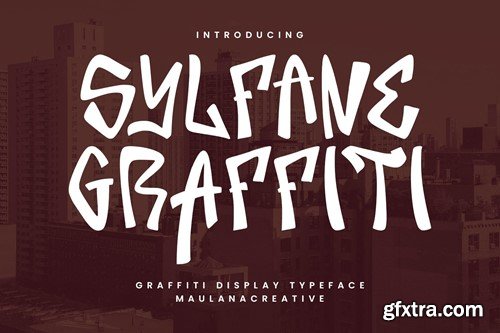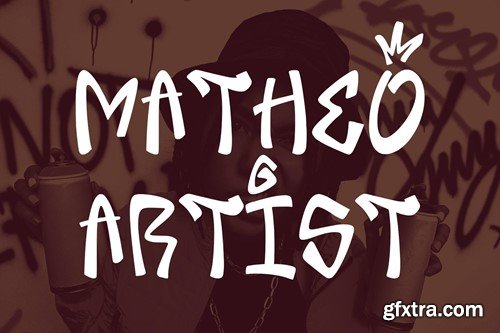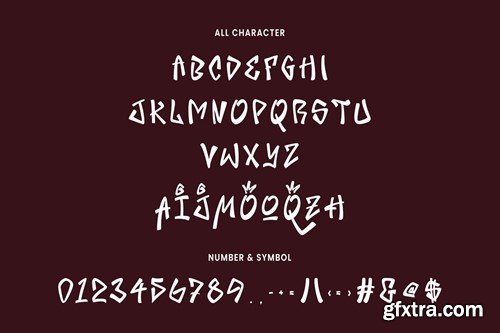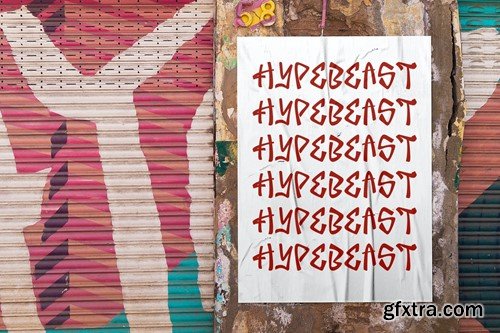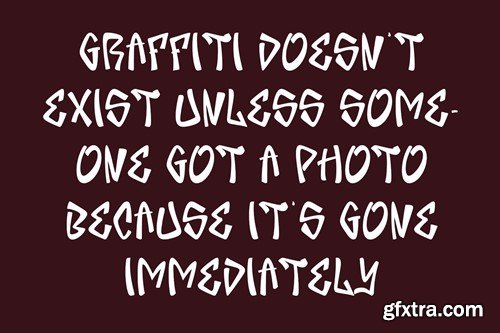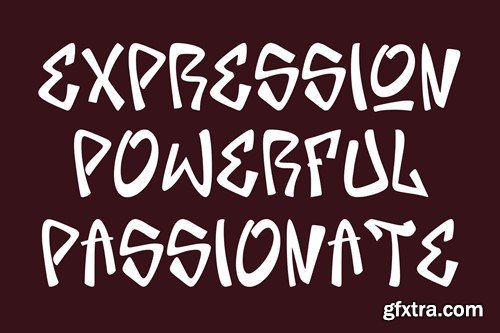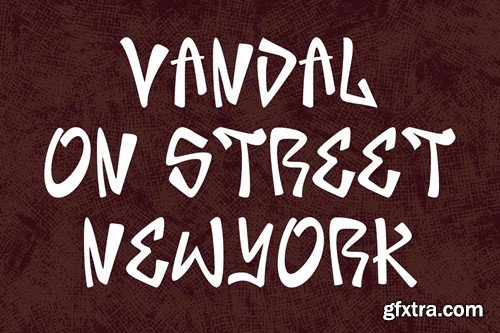
Sylfane Graffiti Display Font TKNEZYD
Sylfane Graffiti Display Font
Sylfane graffiti display font, fun character with a bit of ligatures. To give you an extra creative work. Sylfane graffiti display font support multilingual more than 100+ language.
Maulana Creative